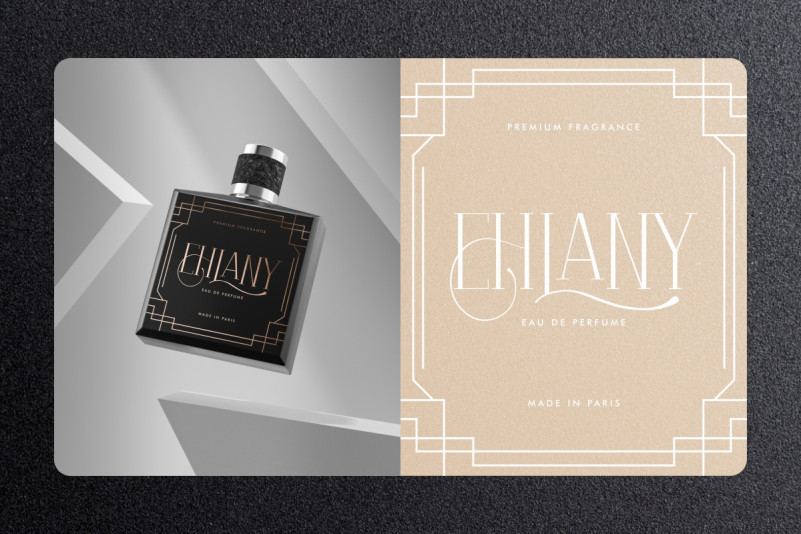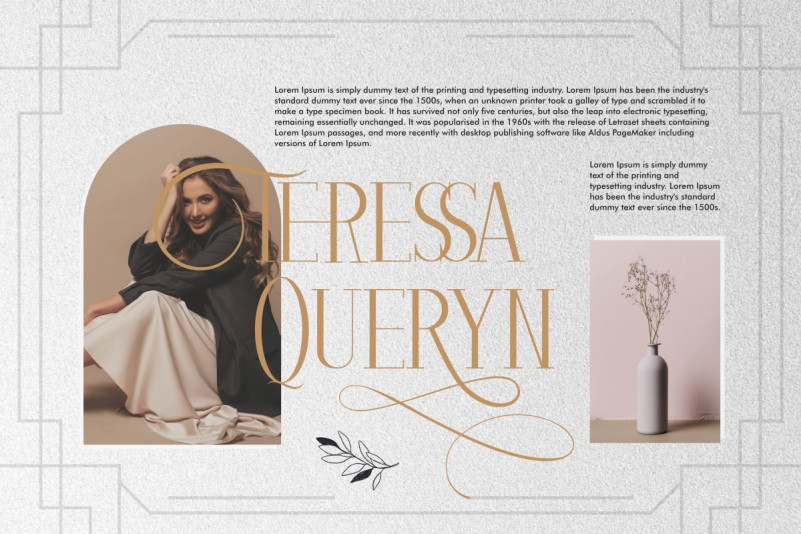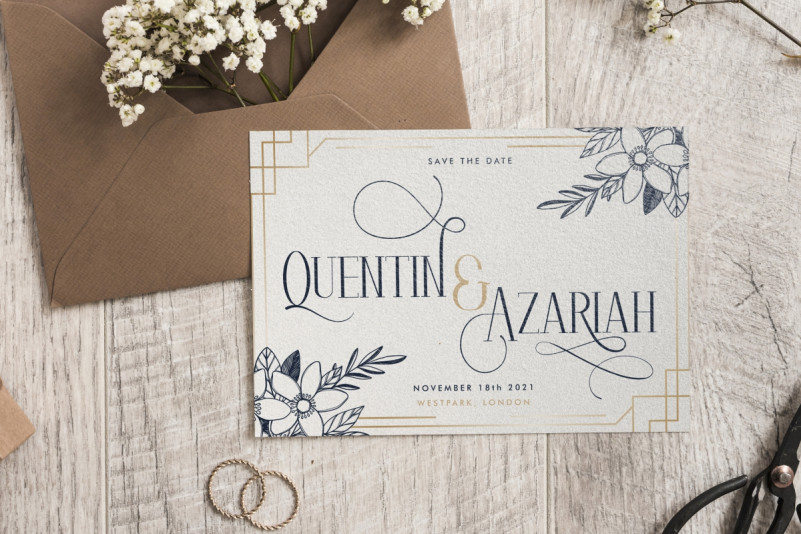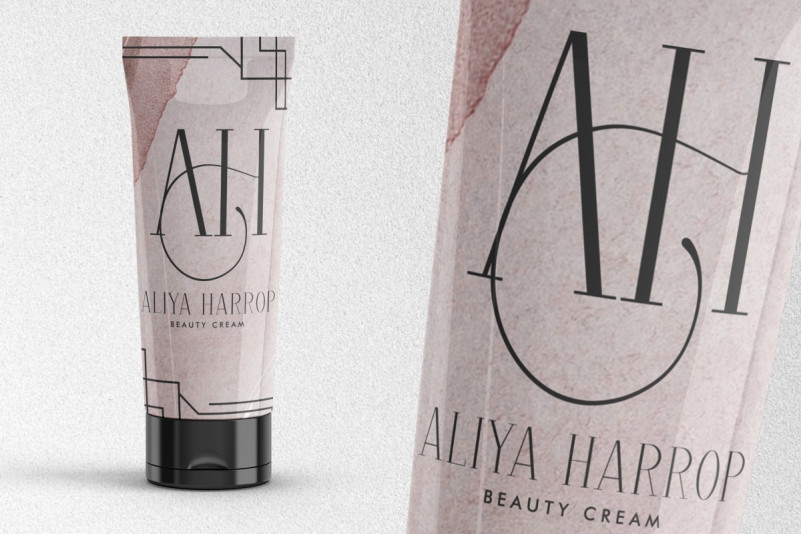
Brockley Serif Font
This is a stunning luxurious modern serif display font family with unique style. It has beautiful, fresh, elegant, natural and stylish glyphs. Brockley will be perfect for branding, logo, photography and signature. It is so elegant, classy, strong and beautiful.